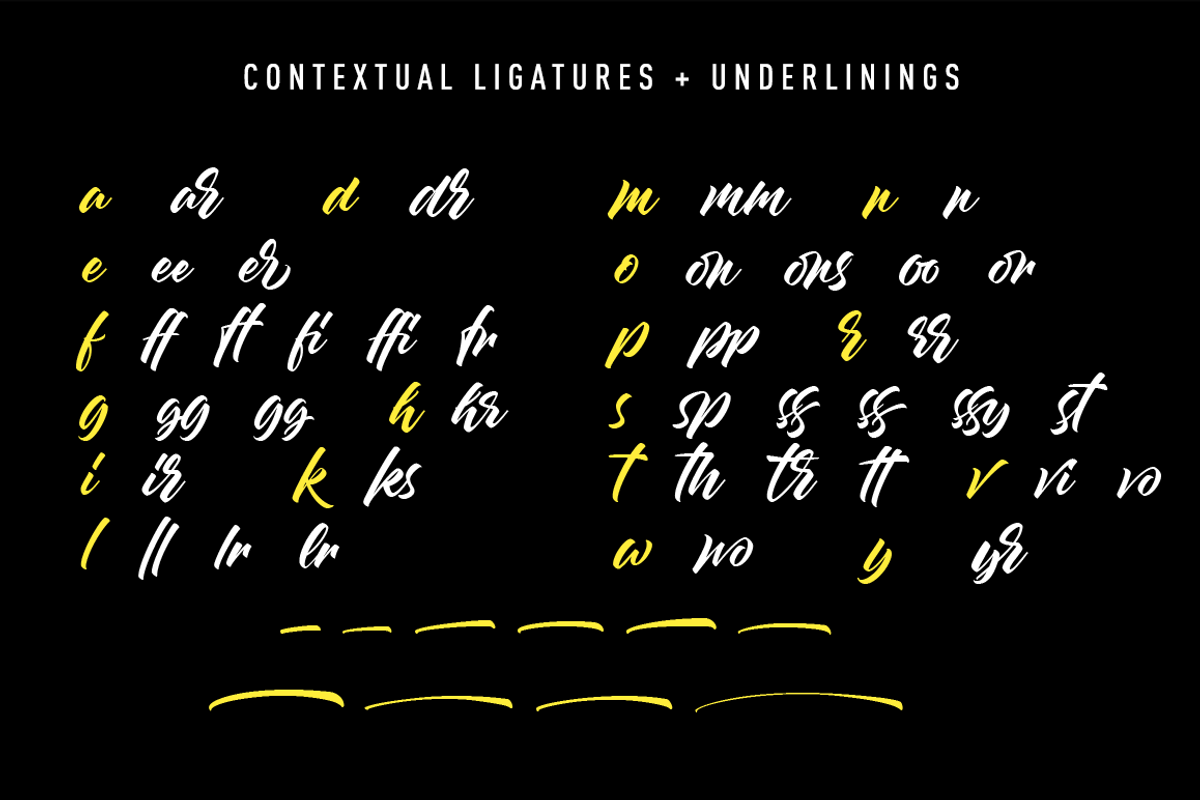
Julietta is a cool script font made from the awesome work of Stephane Lopes, a great lettering artist from France.
This font comes with a huge set of 70alternate letters, contextual ligatures and underlinings.
- Uppercase & Lowercase font
- Stylistic Alternates for every letter
- Contextual ligatures
- 10 Underlinings
- OpenType Features